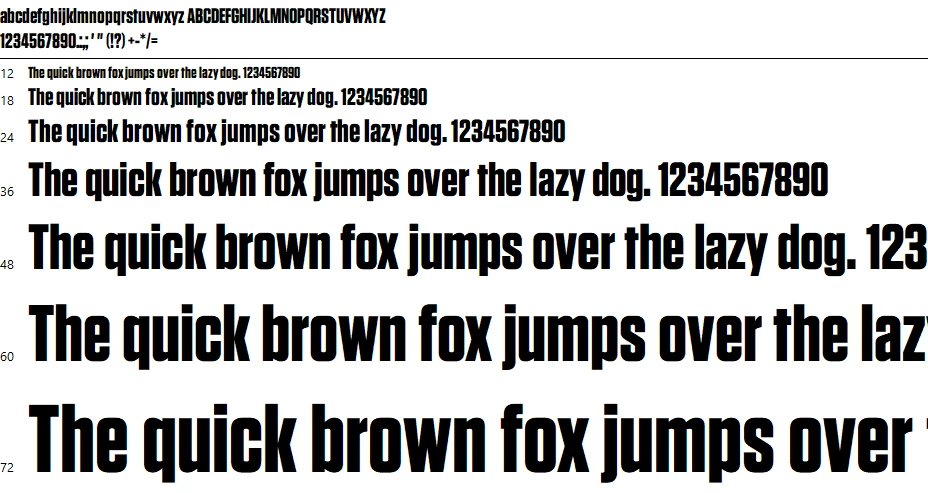
Tungsten Font is the modern sans serif font family, Hoefler & Frere Jones designed this elegant font typeface in 2009. It has 8 weights with 4 variants, however, there are no italic styles available. This style of flat-sided sans-serif is known as gas pipe and was popular with poster designers of the twentieth century as the flat sides made it easy to space letters.
Tungsten font is an ultimately based font for any stylish design that needs just a little bit more sophistication. It looks high-quality in huge titles and intertwined with historical elements. MVB Solano Gothic, Compacta, Countach, and many more fonts are mostly similar to Tungsten. This is a freeware font. Free download is available on our website. To download free, scroll down to our download font section.
The usage of Tungsten font has gone a long way. The designer created the font to bring some options that would give the users a good variety. However, the font got its position in many sectors the designer might not think of.
Tungsten is very beautiful in design purposes. Graphic designers use the font in projects. On the other hand, publishers use the condensed type for headlines and for similar sections where presentation is the prime issue. It is also good for web fonts.
Also, the font has the face of the body text style. As it is a true type font that is compatible with the text as well as the heading and title.
StyleSans-serif.
DesignerHoefler & Frere Jones.
Similar to Tungsten Font
• MVB Solano Gothic.
• Compacta.
• Gotham.
• Countach.
• Kulturista.
What type of font is Tungsten Font?
Ans: Tungsten Font is the modern sans serif font family.
Is there any font similar to Tungsten Font in Google Fonts?
Ans: Oswald is the most similar Google font to the Tungsten Font.